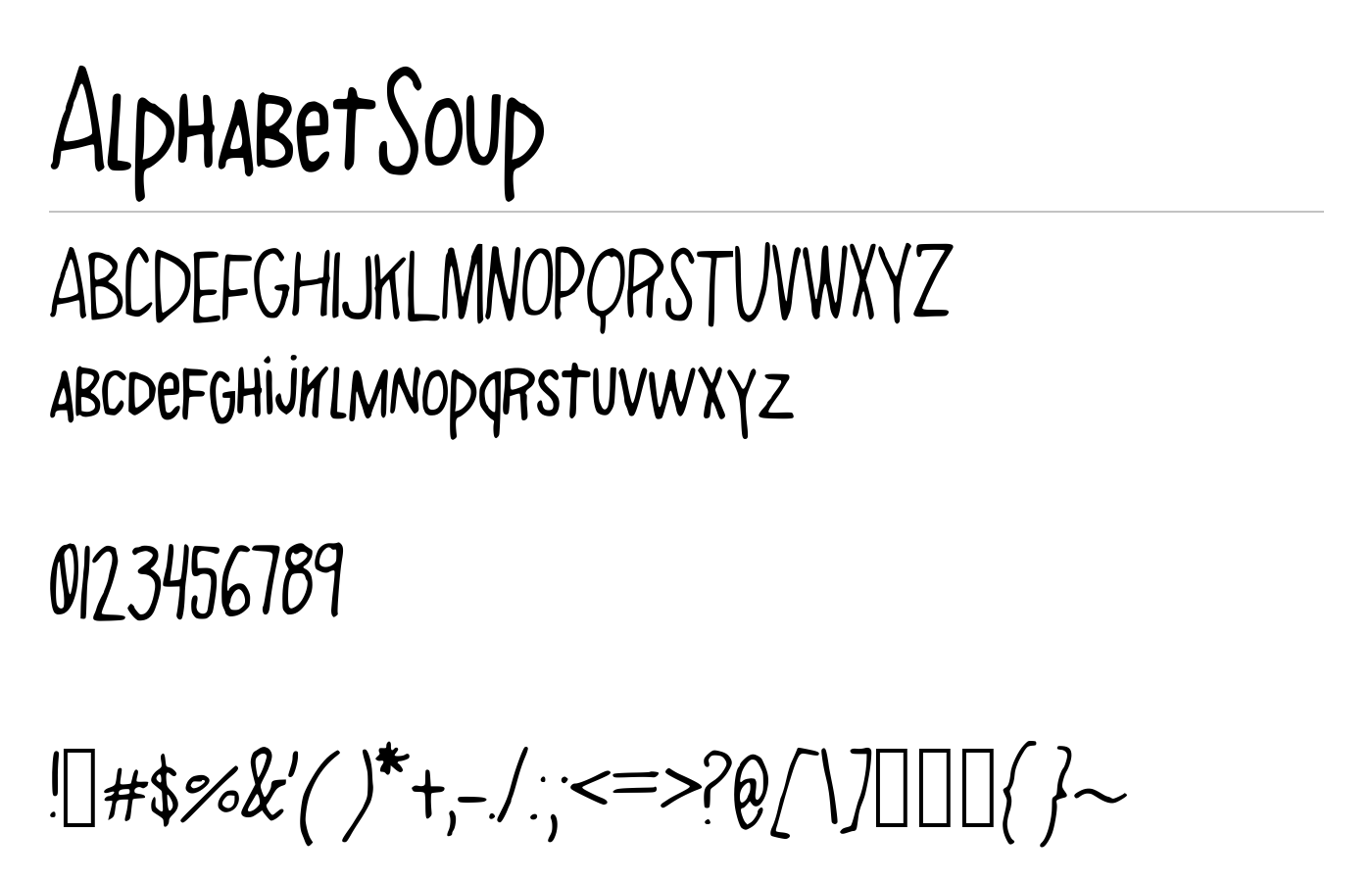
AlphabetSoup Font is a playful, handwritten sans serif typeface characterized by its tall, narrow letterforms and irregular stroke widths, giving it a casual and slightly quirky feel. Its airy spacing and informal style make it perfect for creative projects, children’s materials, and designs that want to convey friendliness and approachability. This font works well in headlines, logos, and fun packaging where a relaxed, hand-crafted vibe is desired.
AlphabetSoup Font
About AlphabetSoup Font